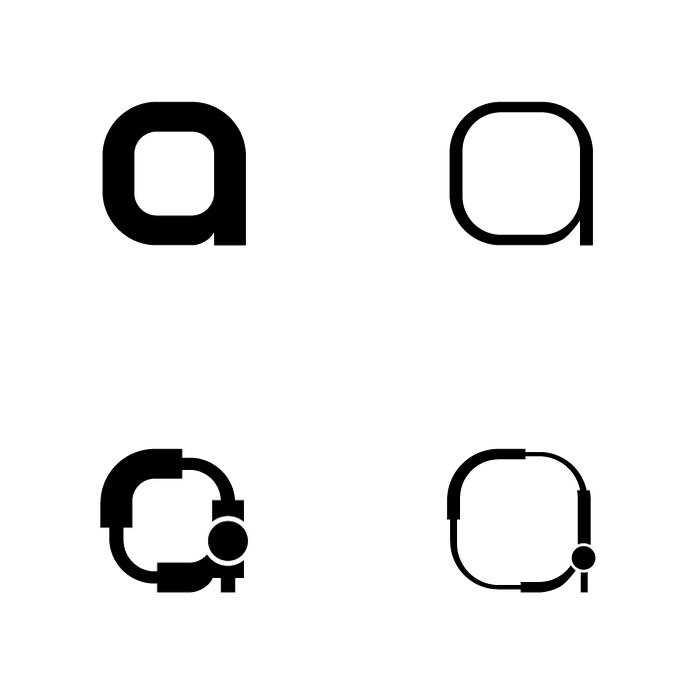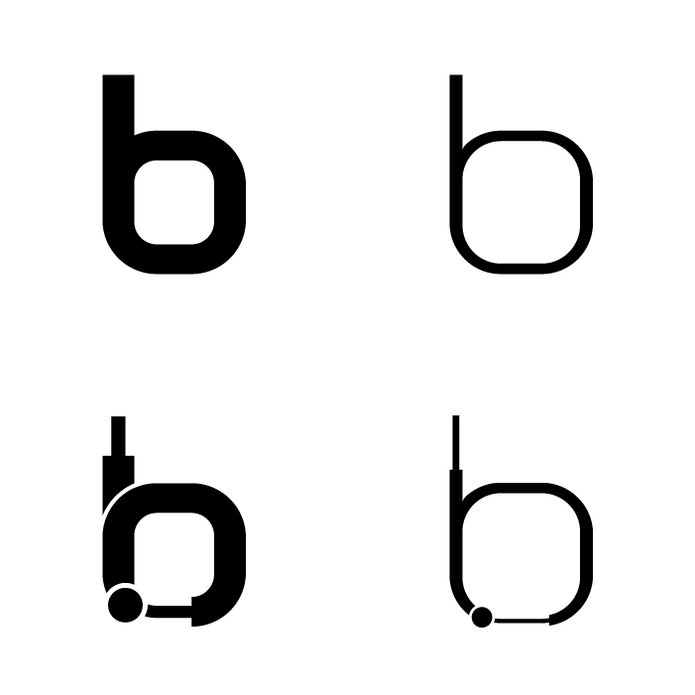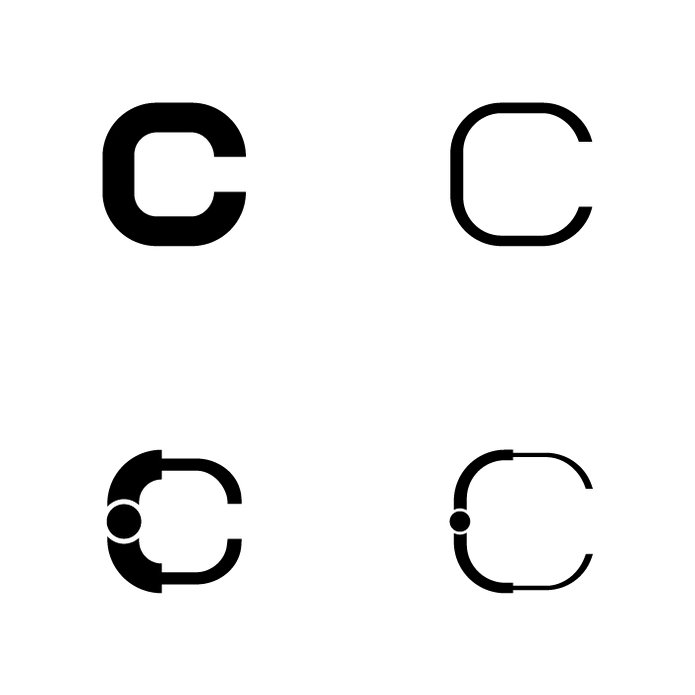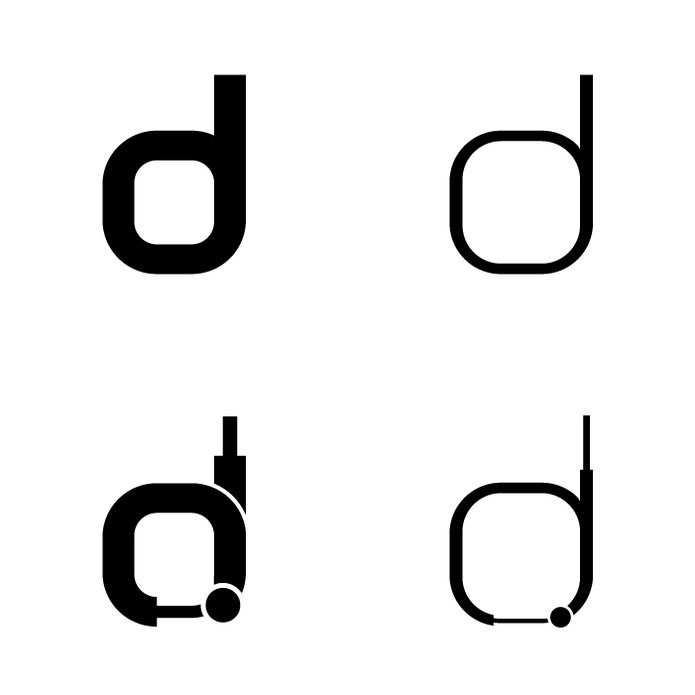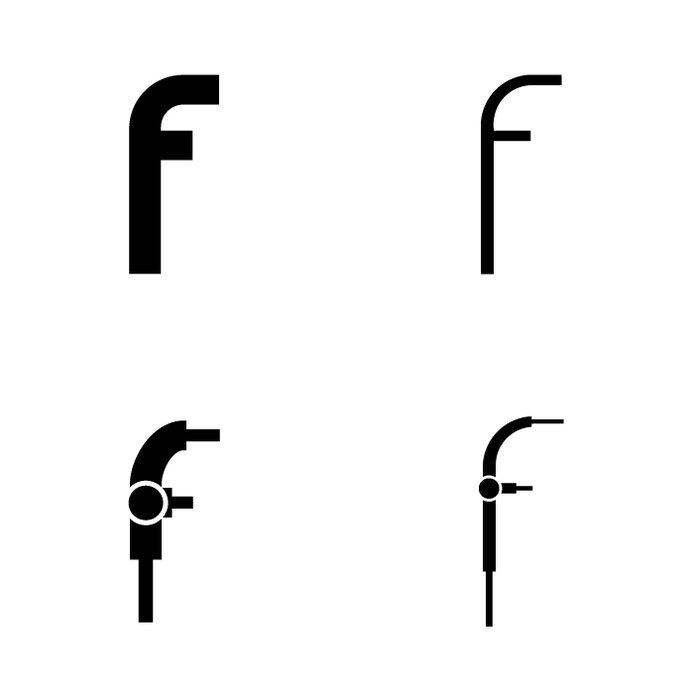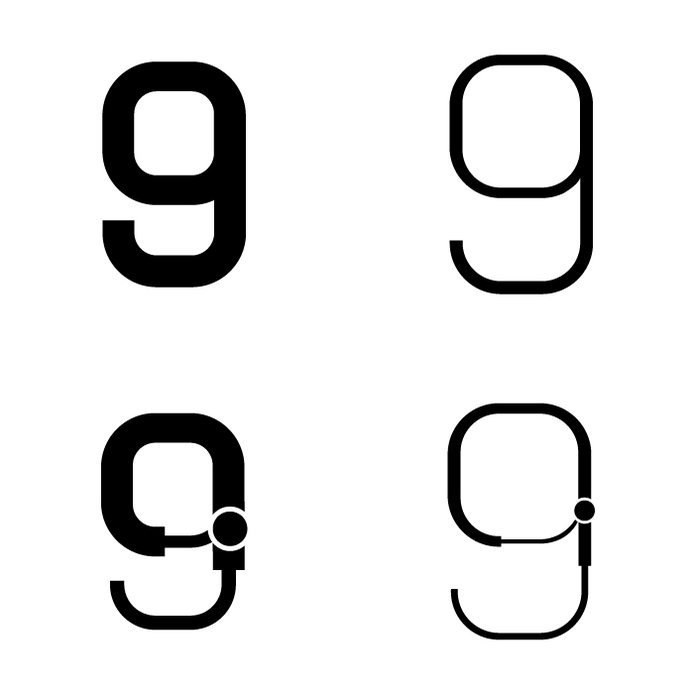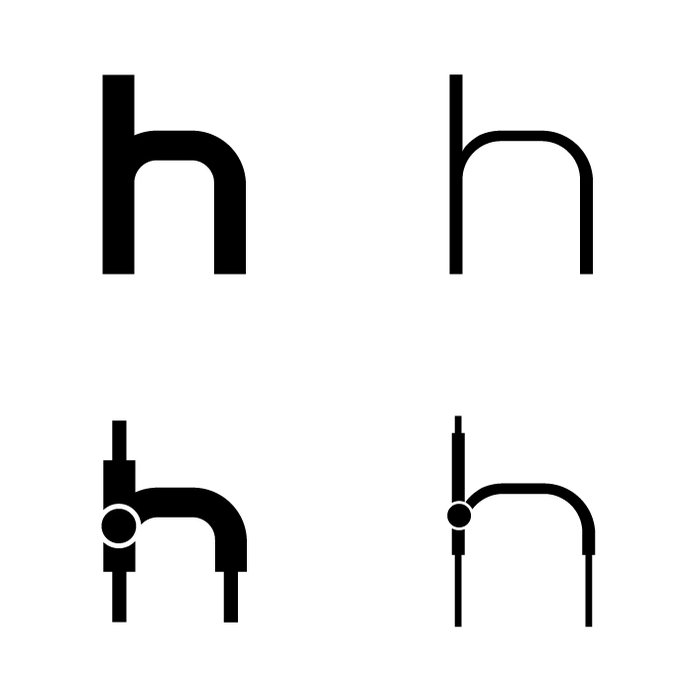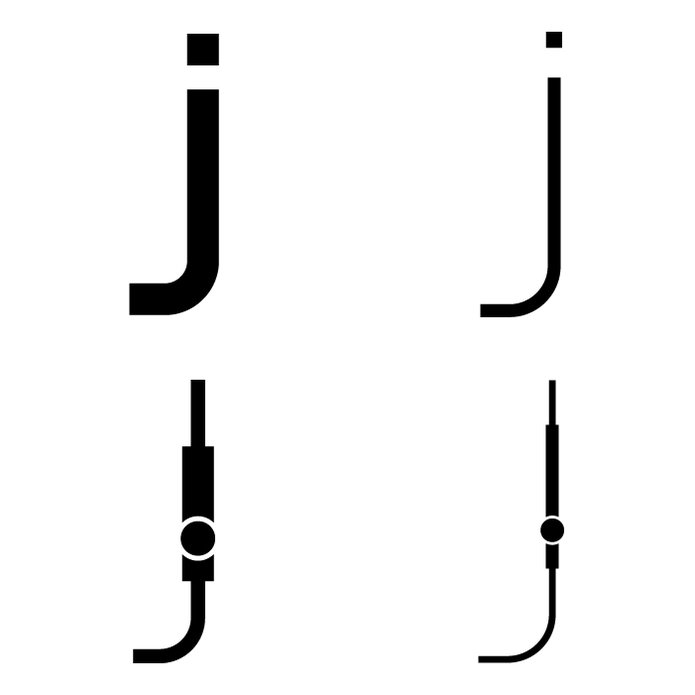
Toronto Typeface - Lower Case!
This is the second part of my Typeface that I designed in Toronto, Canada.
I got the inspiration from things that I saw in the city.
I based on the combination of round a strait corners
of things that I saw in the city.
I'm in Toronto at the moment. I've been here for only a month. And I think that your typeface is great. I like the idea behind it. Since I've noticed myself these pipes they have everywhere, and mostly on the ceilings of some public toilets. It's like they don't bother covering them.
So, good job. The letters look great.